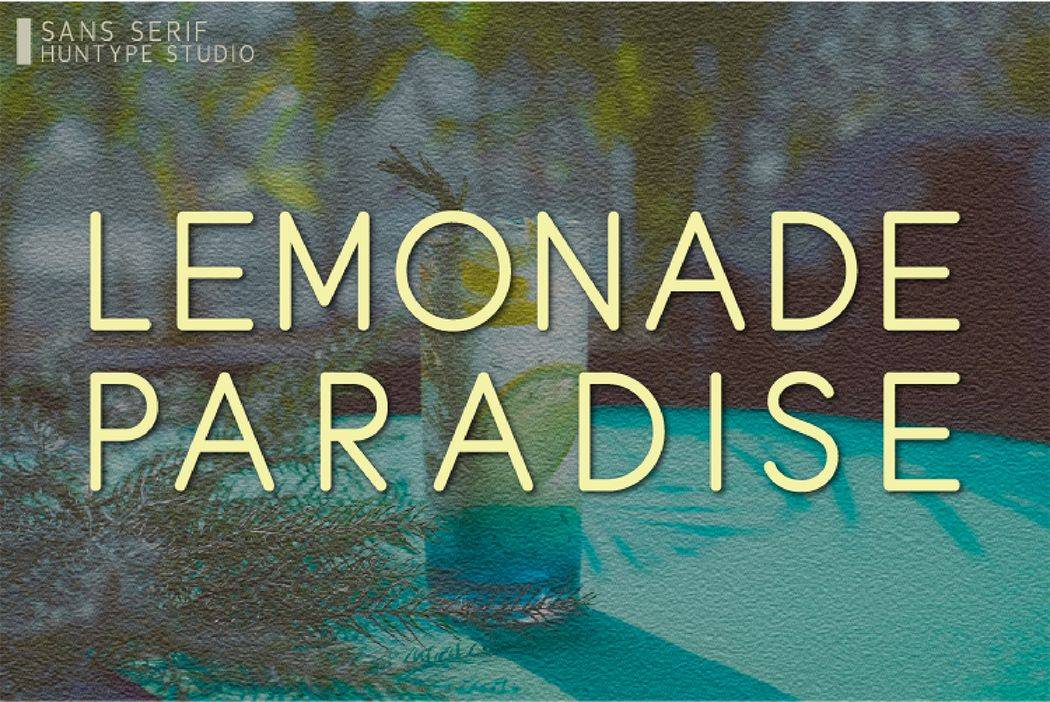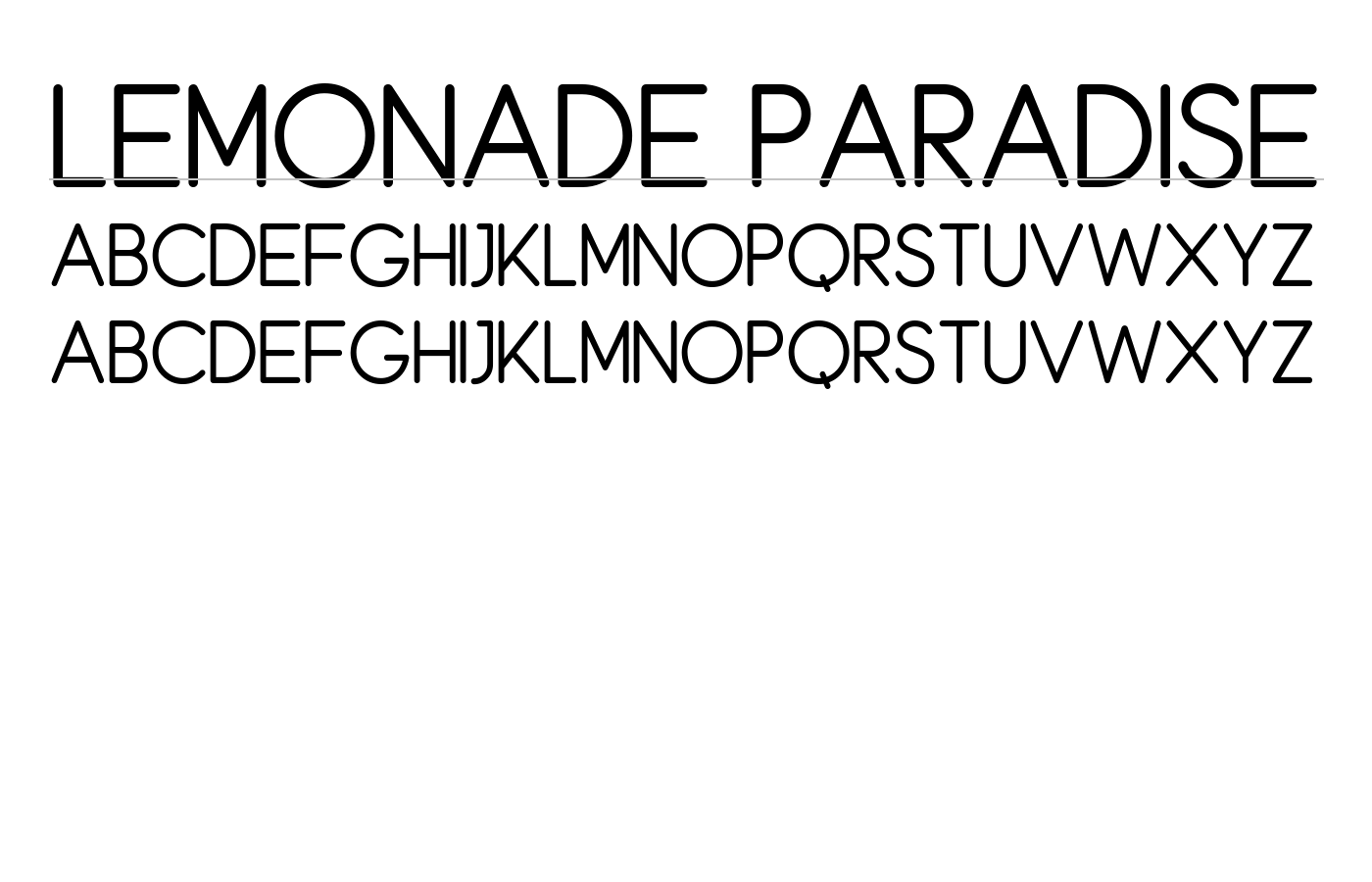
Lemonade Paradise is a sleek, modern sans serif font characterized by its thin, consistent strokes and geometric structure. With its tall x-height and open letterforms, it delivers a clean and airy feel that works perfectly for contemporary branding, editorial headlines, and stylish packaging. This font’s minimalist elegance and subtle rounded corners give it a friendly yet sophisticated personality ideal for fresh, trendy designs.
Lemonade Paradise Font
About Lemonade Paradise Font
| Font family | Lemonade Paradise Font |